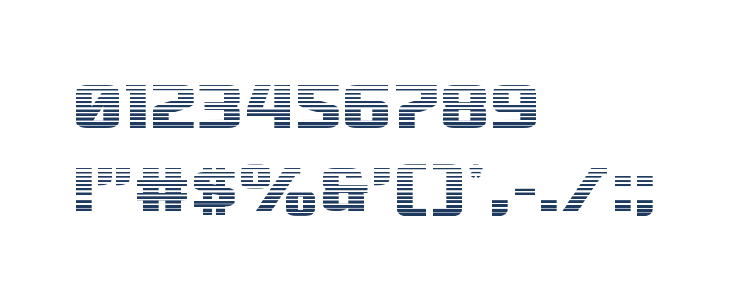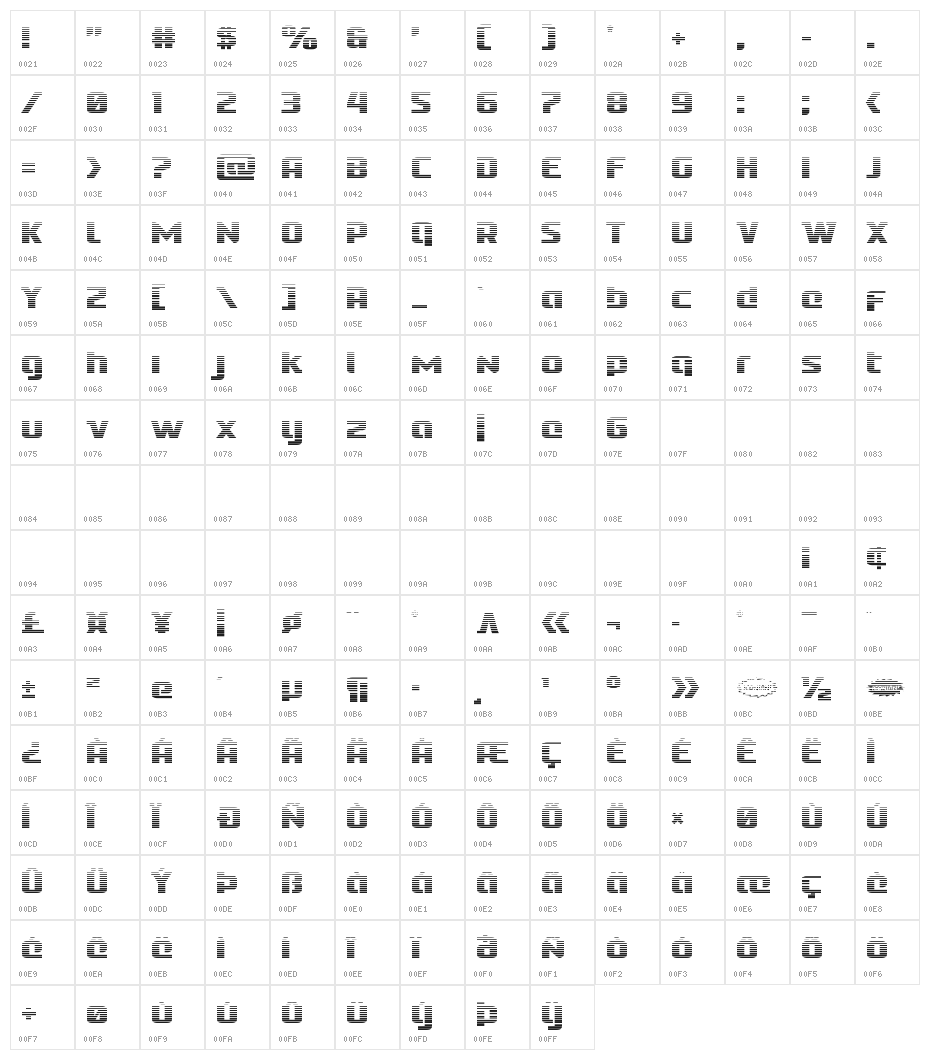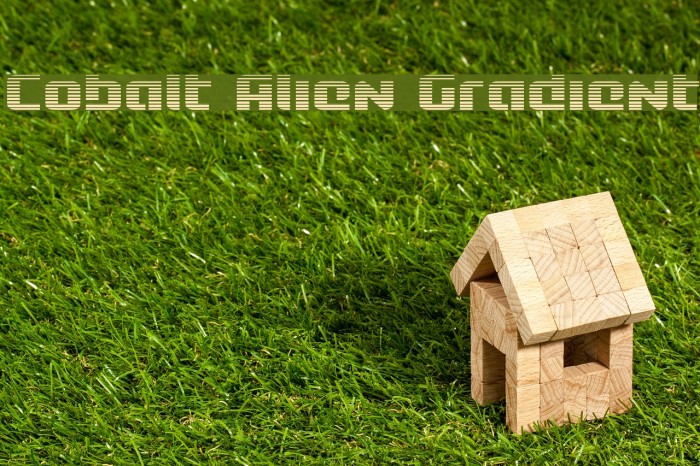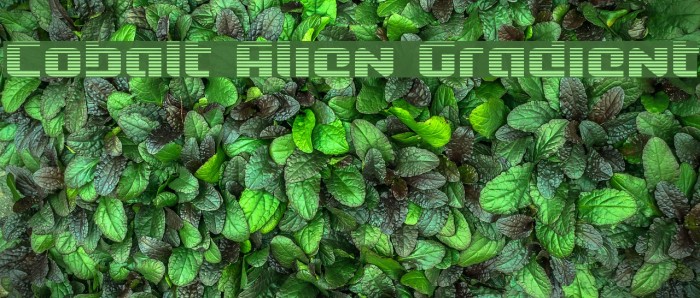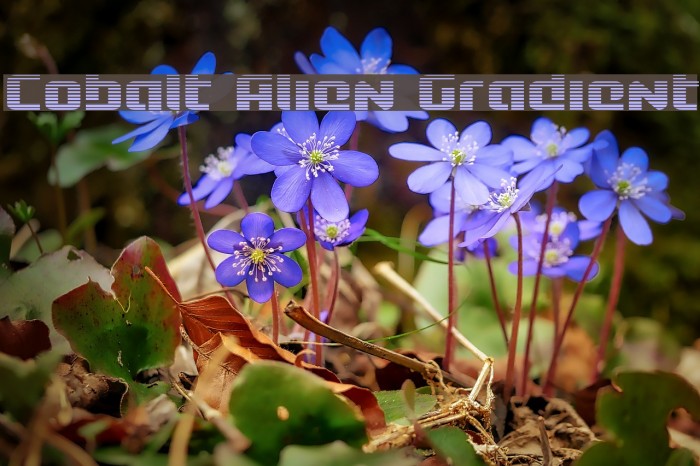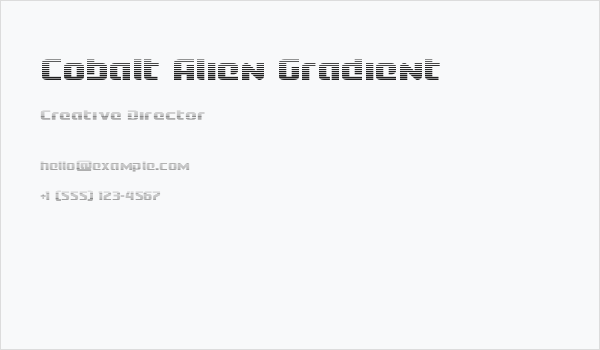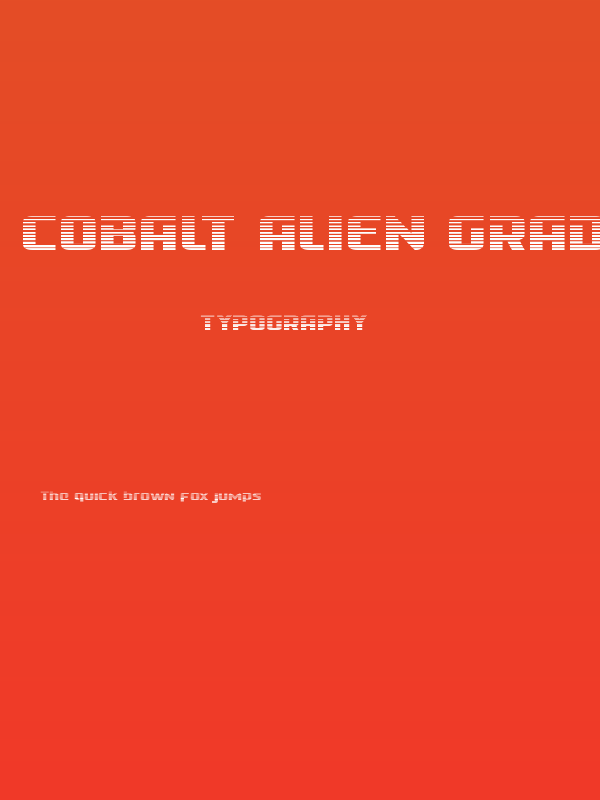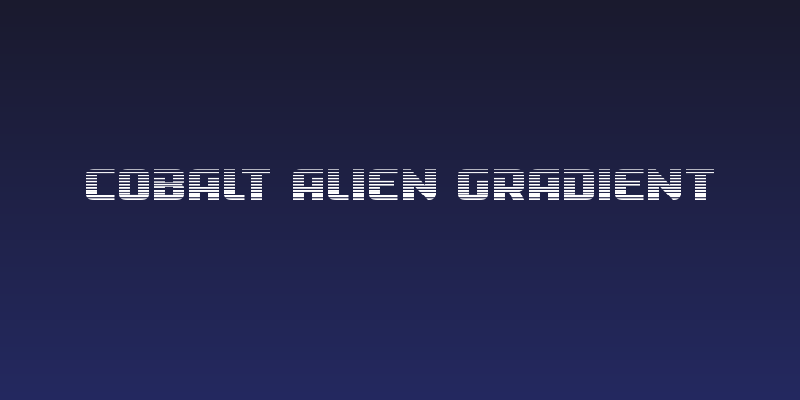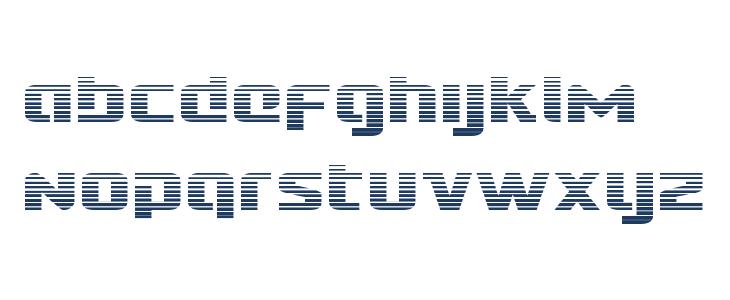
Cobalt Alien Gradient Font
Cobalt Alien Gradient Description
This font features a futuristic and bold design with a unique striped pattern running horizontally through each character. The uppercase and lowercase letters maintain a consistent width, giving a uniform appearance. The numerals and special characters are designed to match the overall aesthetic, making them ideal for digital and sci-fi themed projects. The font's distinct style is eye-catching and modern, suitable for creating a strong visual impact.
COBALT-ALIEN-GRADIENT UPPERCASE
COBALT-ALIEN-GRADIENT LOWERCASE
COBALT-ALIEN-GRADIENT OTHER CHARS
| Proposed Projects | Ideal for sci-fi themed posters, video game titles, digital artwork, and technology branding. |